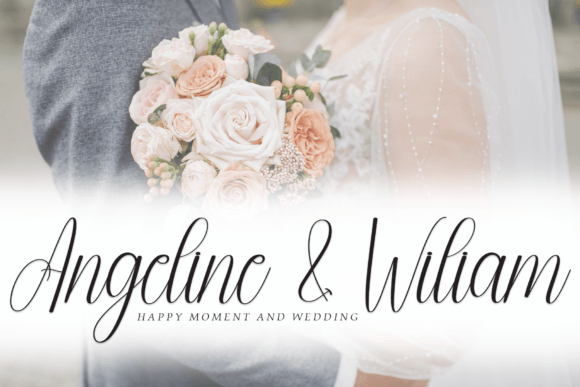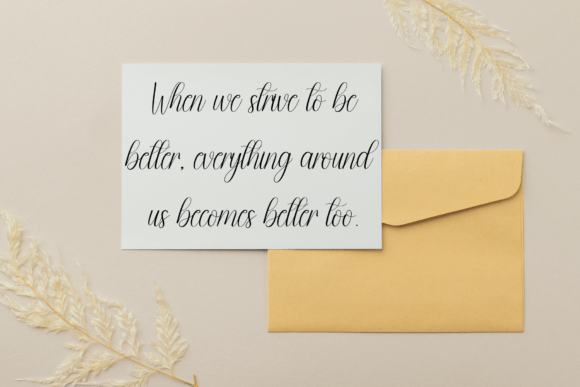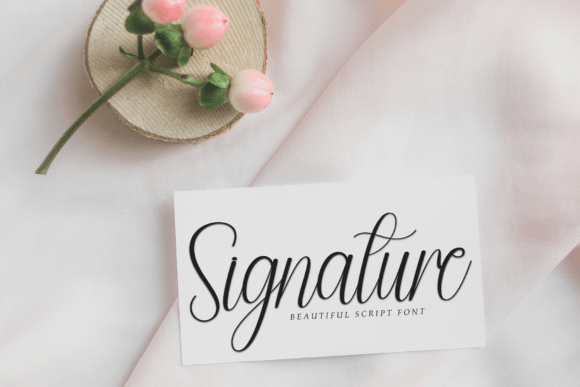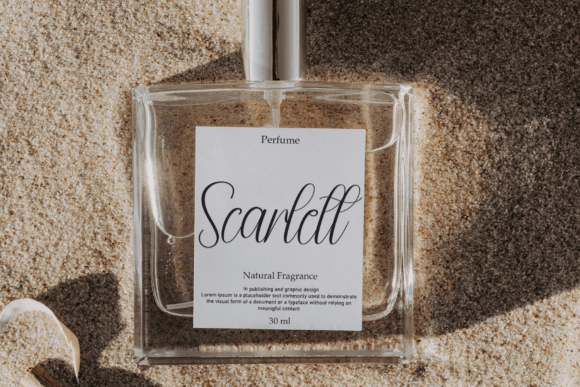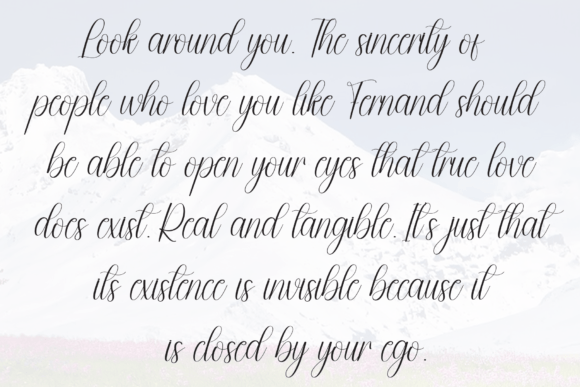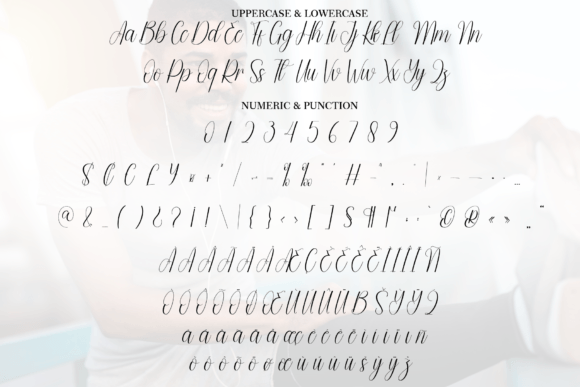
The Sweet Charm of Eagerly Font: A Designer’s Delight
I still remember the time I was working on a wedding invitation project, and I just couldn’t find the perfect font to match the elegance and playfulness of the occasion. My client wanted something that would make their special day feel unique and memorable. After hours of scouring through font libraries, I stumbled upon Eagerly Font, and it was love at first sight! 💕
This sweet and elegant handwritten display font has since become a staple in my design toolkit, and I’m excited to share its charm with you. Whether you’re a designer, crafter, or creative hobbyist, Eagerly Font is an excellent choice for adding a fun touch to your projects.
An Honest Review of Eagerly Font
- ✨ Elegant and refined, yet playful and whimsical
- ✅ Perfect for wedding invitations, cards, and other special occasion designs
- 💫 Supports OpenType features, glyphs, and stylistic alternates for added versatility
- 🎨 Beautifully crafted to add a touch of sophistication to any design
While Eagerly Font is an excellent choice for many projects, there are a few things to keep in mind:
- ⚠️ May not be suitable for body text or long-form content due to its display font nature
- 🤔 Limited availability of certain characters or glyphs, but this can be addressed with font combinations or creative workarounds
The Designer Inspiration Behind Eagerly Font
Eagerly Font was crafted with love and care by a talented designer who wanted to create a font that would bring joy and elegance to any design project. With a passion for typography and a keen eye for detail, the designer poured their heart and soul into creating a font that would exceed expectations.
Q: What type of projects is Eagerly Font best suited for?
A: Eagerly Font is perfect for wedding invitations, cards, and other special occasion designs where a touch of elegance and playfulness is desired.
Q: Does Eagerly Font support OpenType features?
A: Yes, Eagerly Font supports OpenType features, glyphs, and stylistic alternates, making it a versatile choice for designers.